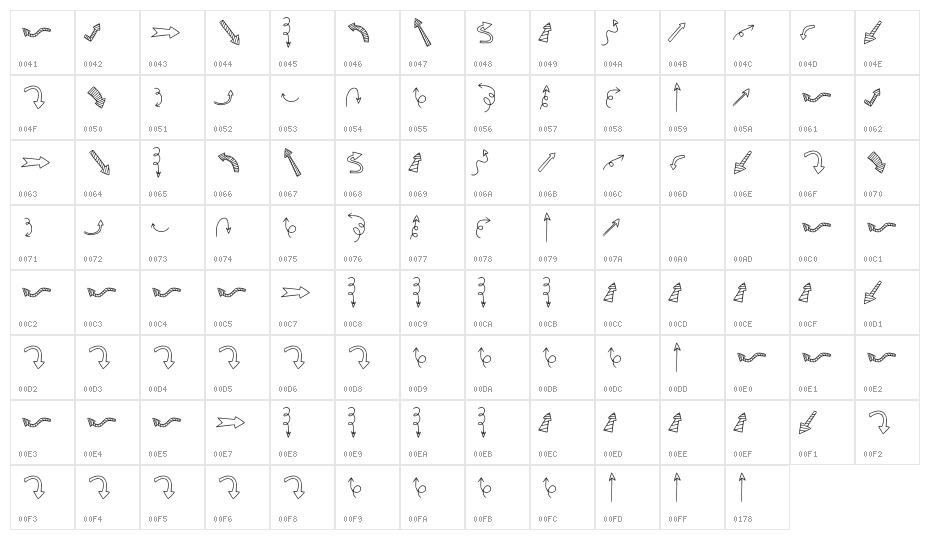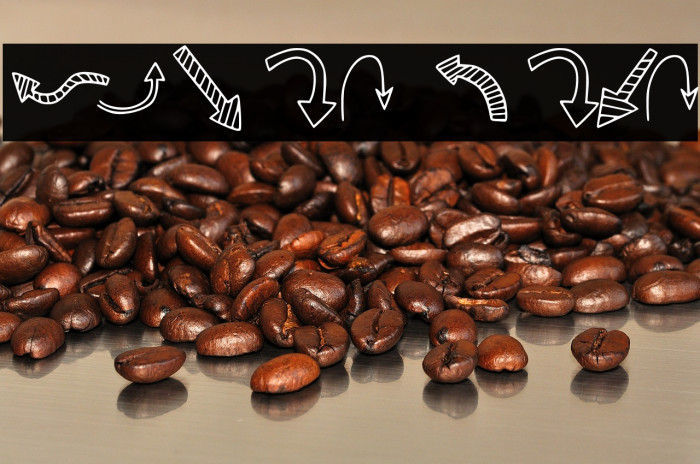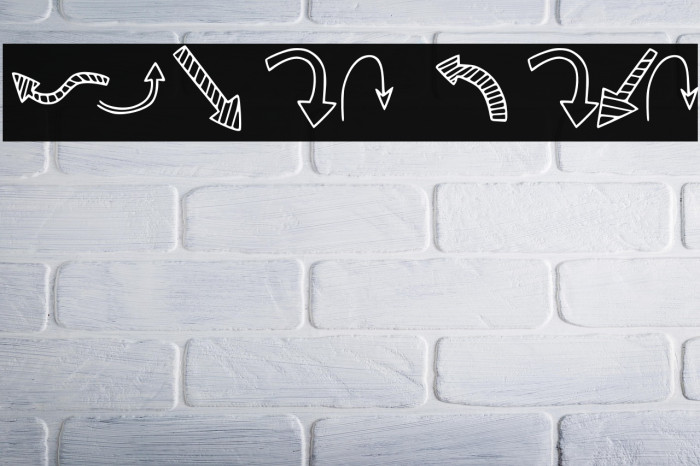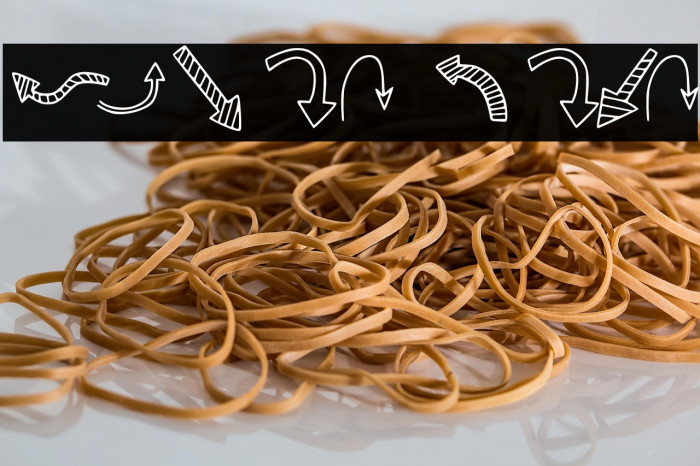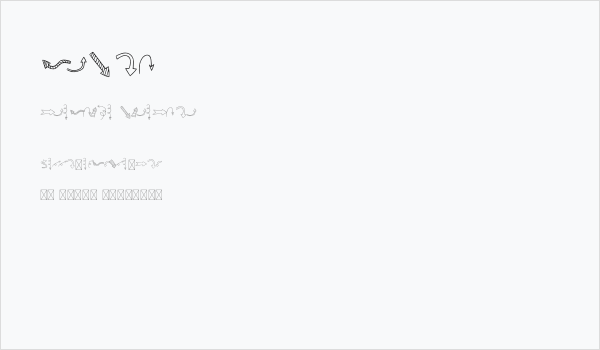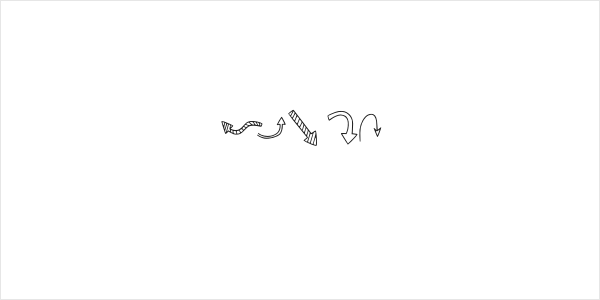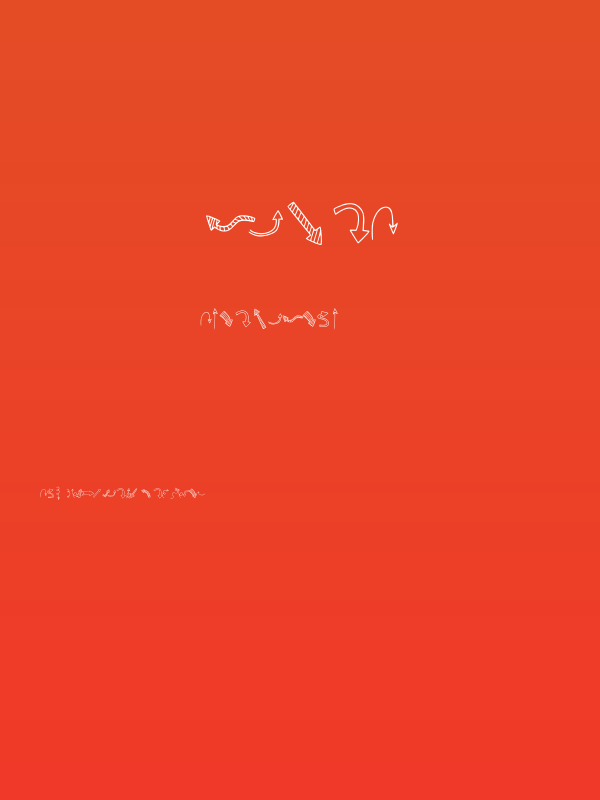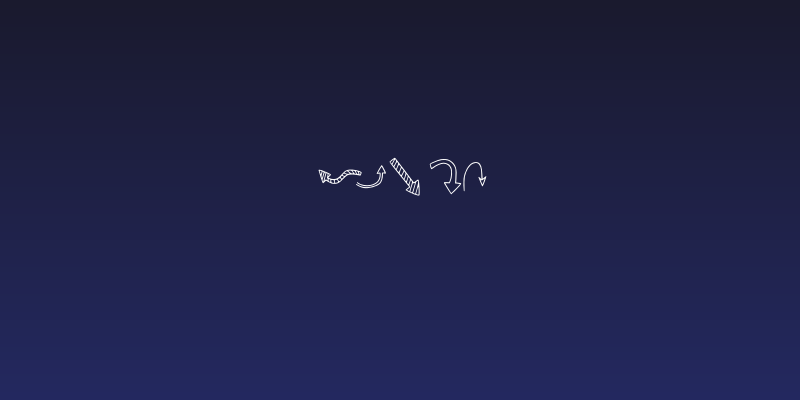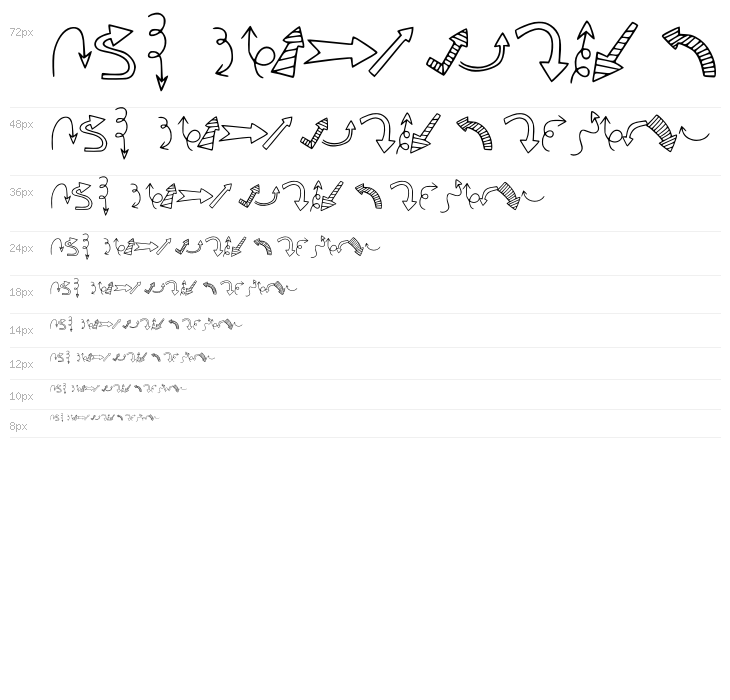
Ardot Font
Ardot Description
A playful, hand-drawn set of arrows and sketchy symbols with varying line thickness and whimsical curves, evoking a casual and informal feel. The style mimics quick marker or pen sketches, with some arrows filled, striped, or looped, and a set of outlined rectangles with X marks.
| Overall Style | Decorative, Playful, Hand-drawn |
| Use Case | Icons, Illustrations, Decorative elements |
| Proposed Projects | Whiteboard presentations, educational materials, infographics, creative posters, children's books, playful branding. |